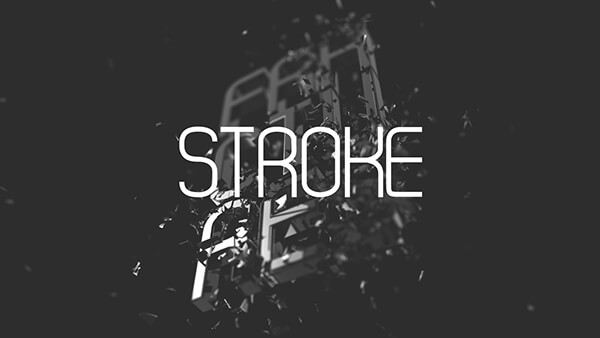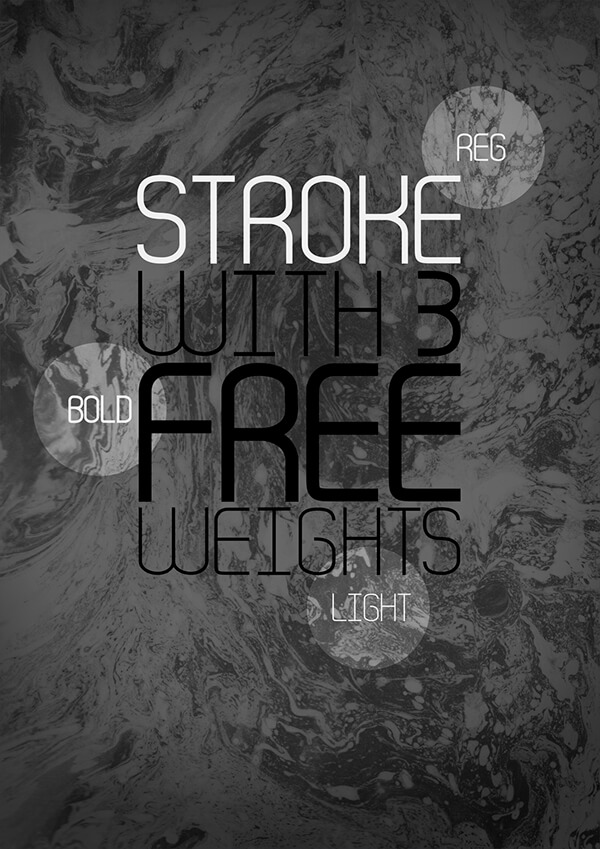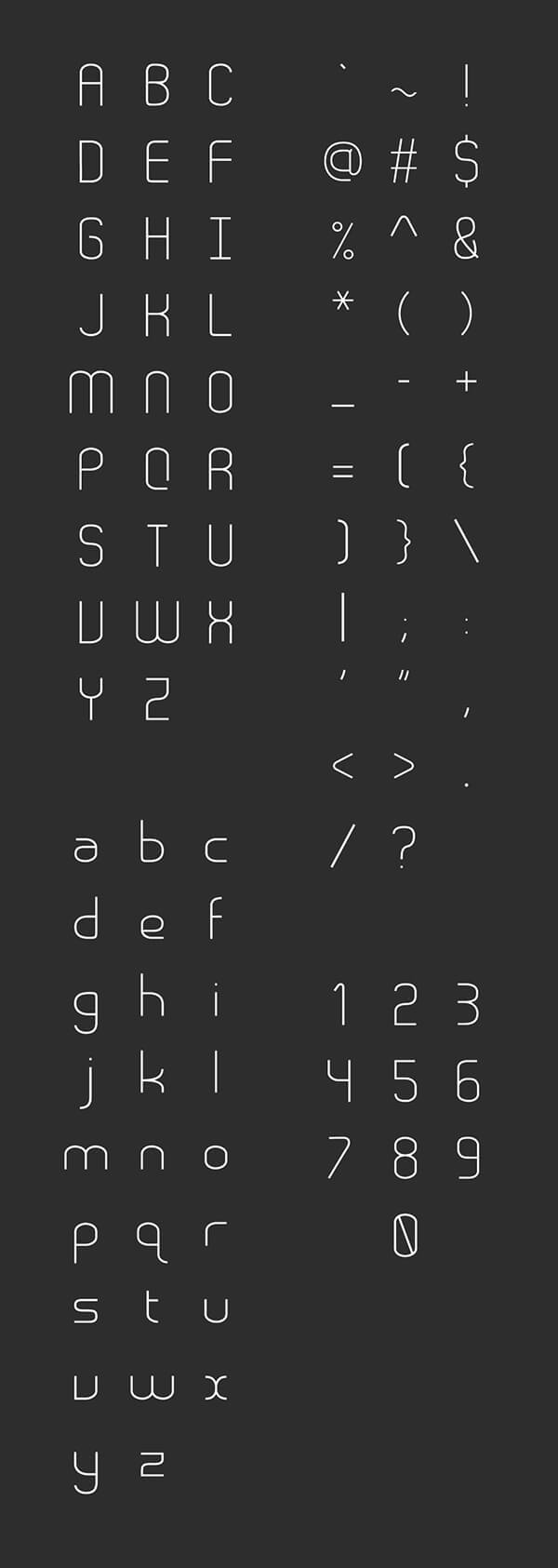
Stroke Free Font
Stroke free font it’s a sans serif font with elegant details. It includes 3 weights ( regular, bold and light ). This cool font looks great for poster headlines, flyers, logos, whatever your imagination decides.